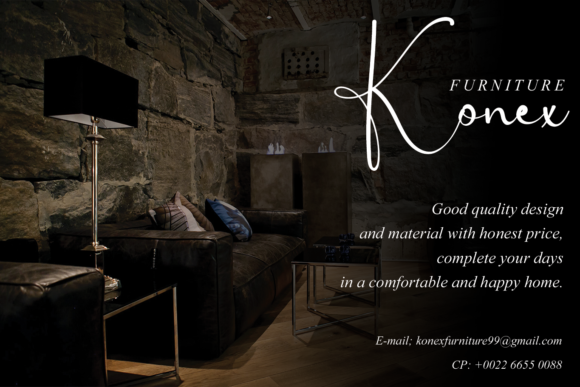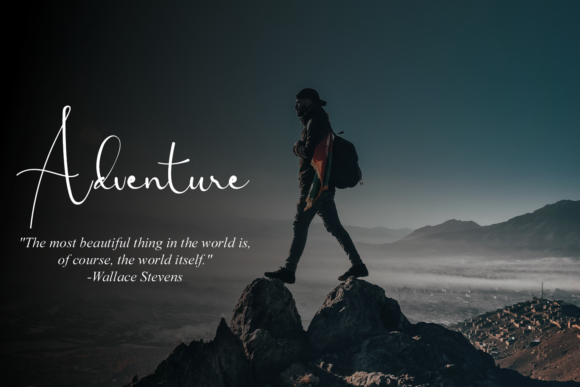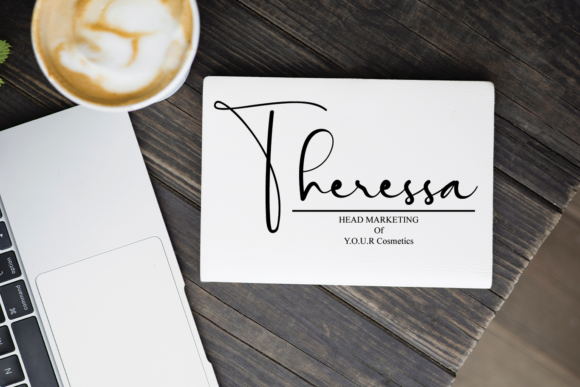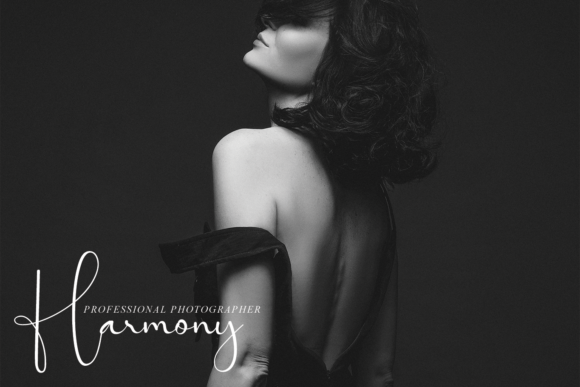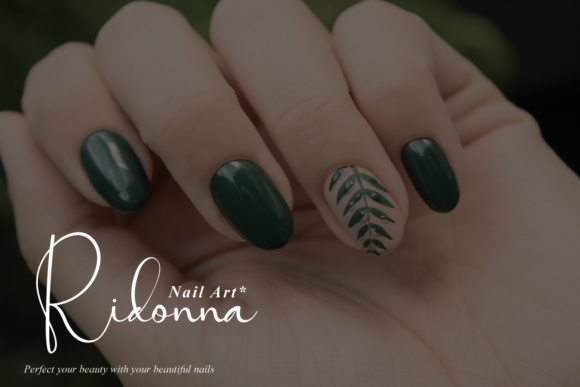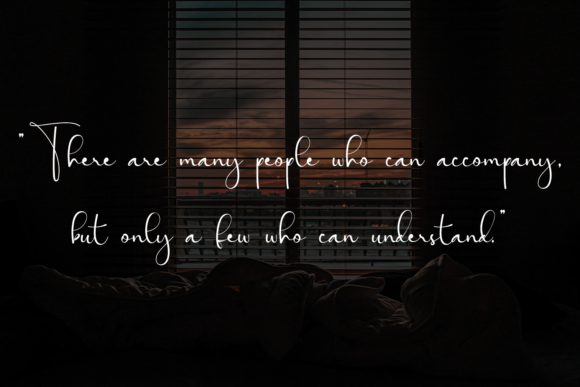
Introducing Good Friday Font: A Timeless Calligraphic Masterpiece
Are you a designer, crafter, or creative looking for a font that exudes elegance and sophistication? Look no further than the Good Friday Font, a stunning handwritten font that is sure to become a favorite in your collection. With its perfect blend of classic calligraphic influences and modern freshness, this font is ideal for a wide range of projects, from wedding invitations and branding materials to digital content and craft designs.
A Masterful Design
The Good Friday Font is a beautifully crafted handwritten font that boasts a unique and distinctive style. Its classy calligraphic influences are evident in its flowing lines, elegant curves, and refined letterforms. At the same time, the font feels contemporary and fresh, making it perfect for designers and crafters who want to create modern and stylish designs.
One of the standout features of the Good Friday Font is its PUA (Private Use Area) encoding. This means that you can access all of the amazing glyphs and ligatures with ease, giving you unparalleled creative control over your designs. With PUA encoding, you can effortlessly swap out characters, add swashes, and experiment with different combinations to create truly unique and eye-catching designs.
What Makes Good Friday Font So Special?
So what sets the Good Friday Font apart from other fonts on the market? Here are just a few reasons why this font is a cut above the rest:
- Exquisite Handwritten Style: The Good Friday Font features a beautiful, handwritten style that is both elegant and refined.
- Classy Calligraphic Influences: The font’s calligraphic influences give it a sophisticated and luxurious feel that’s perfect for high-end designs.
- Contemporary and Fresh: Despite its classic influences, the Good Friday Font feels modern and fresh, making it perfect for designers and crafters who want to create stylish and on-trend designs.
- PUA Encoded for Easy Access: The font’s PUA encoding makes it easy to access all of the amazing glyphs and ligatures, giving you maximum creative control over your designs.
The Good Friday Font is a versatile and adaptable font that is perfect for a wide range of design applications. Here are just a few examples of how you can use this font:
- Wedding Invitations: The Good Friday Font is perfect for wedding invitations, with its elegant and refined style evoking the romance and sophistication of a special day.
- Branding Materials: The font’s classy calligraphic influences make it ideal for branding materials, such as logos, business cards, and letterheads.
- Digital Content: The Good Friday Font is also perfect for digital content, such as blog posts, social media graphics, and email newsletters.
- Craft Designs: The font’s whimsical and artistic feel makes it perfect for craft designs, such as handmade cards, scrapbooking, and DIY projects.
In conclusion, the Good Friday Font is a truly exceptional font that is sure to become a favorite among designers and crafters. With its exquisite handwritten style, classy calligraphic influences, and PUA encoding, this font offers unparalleled creative possibilities. Whether you’re creating wedding invitations, branding materials, digital content, or craft designs, the Good Friday Font is the perfect choice. So why wait? Download the Good Friday Font today and start creating stunning designs that exude elegance and sophistication!